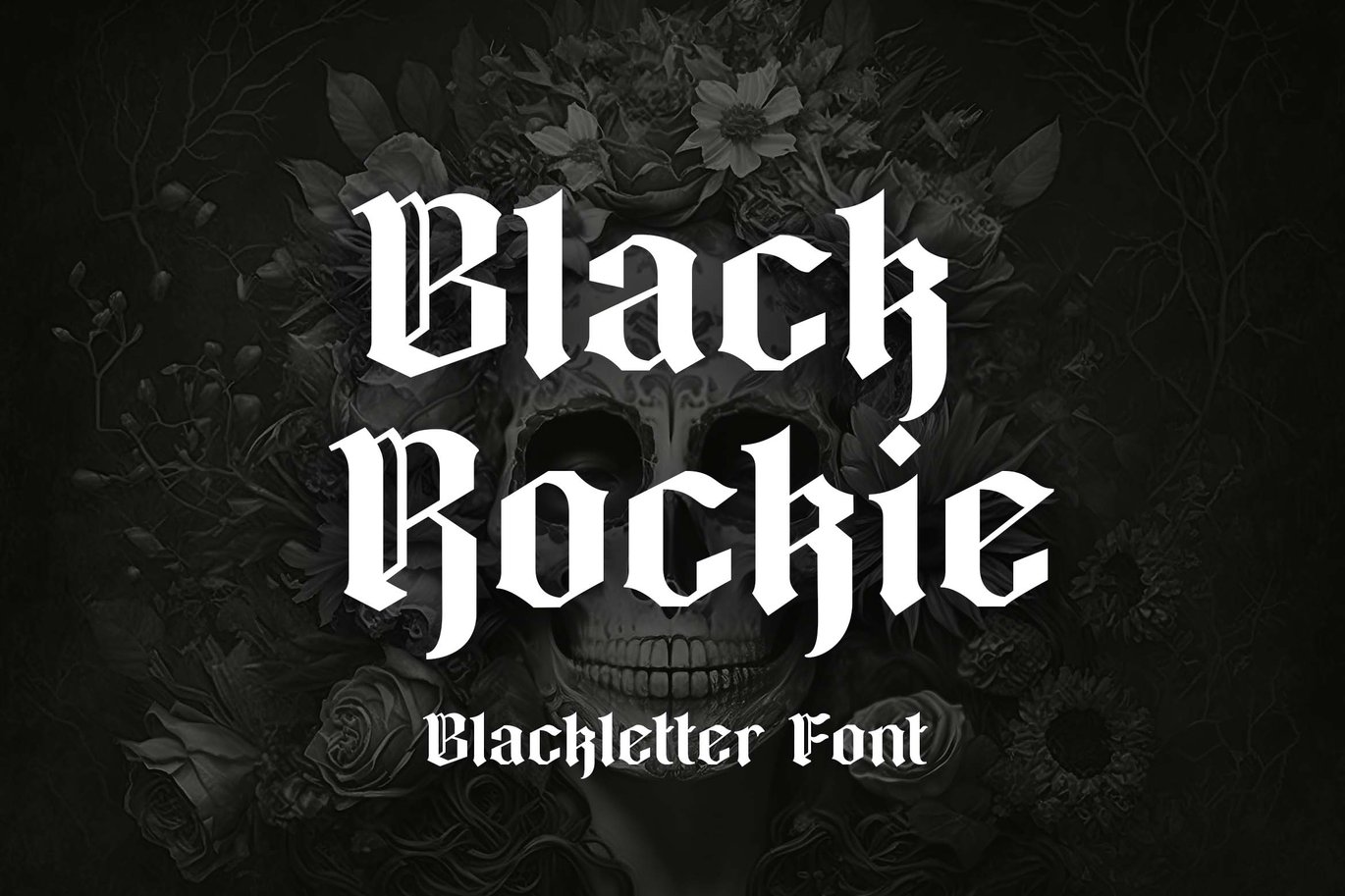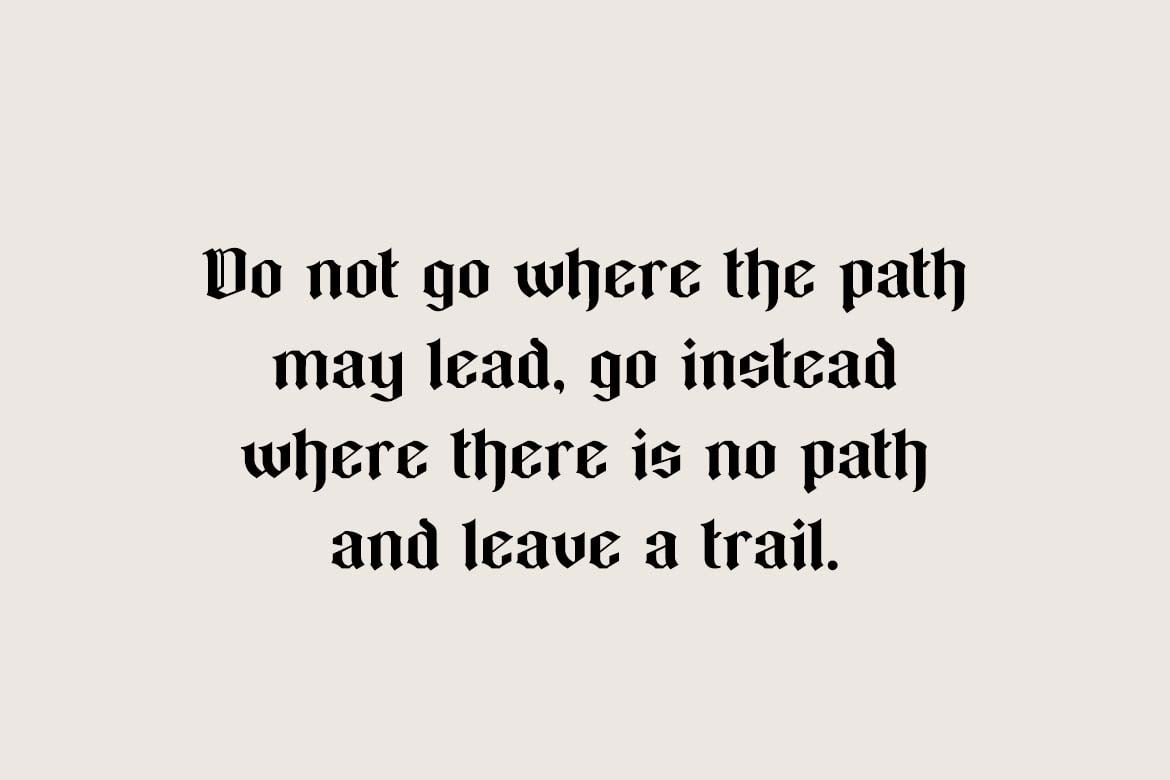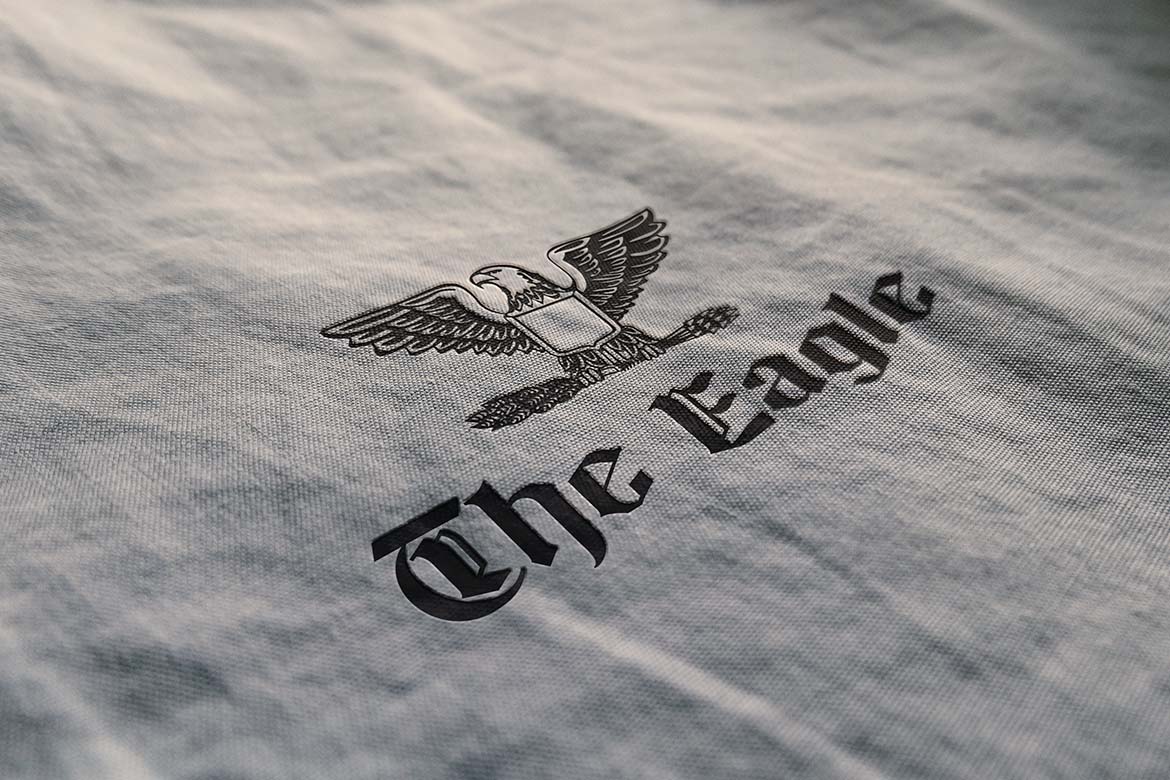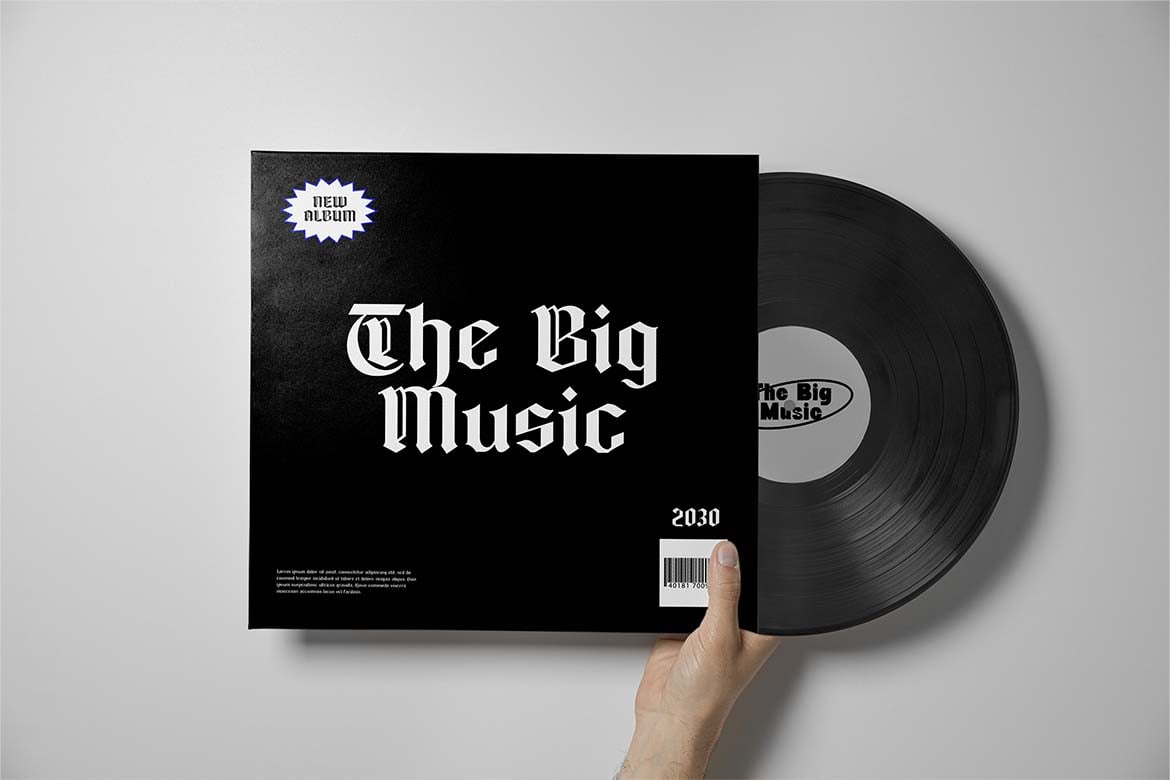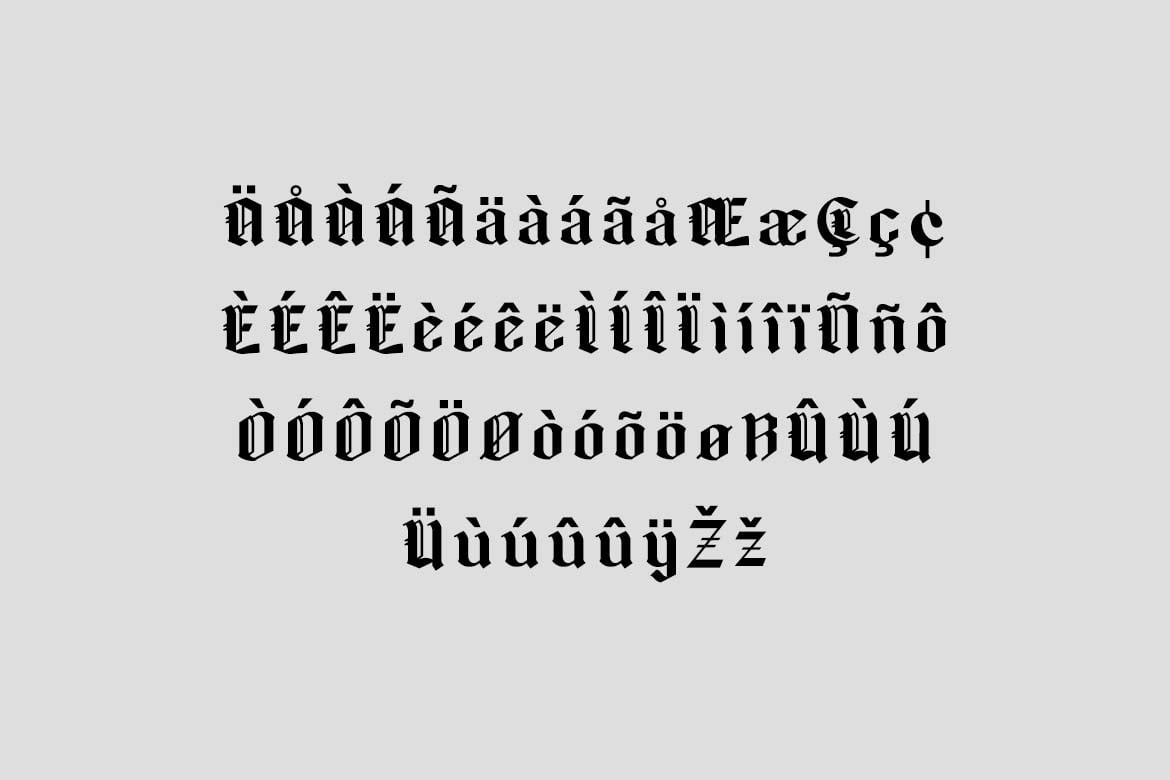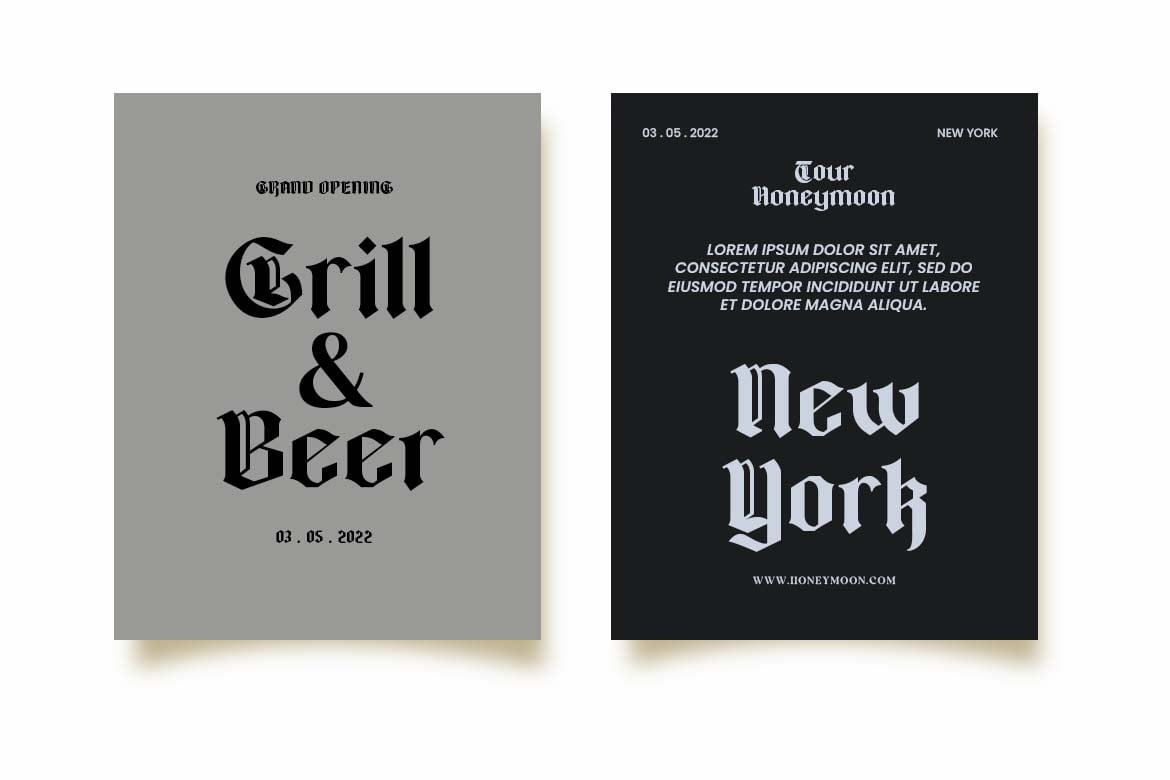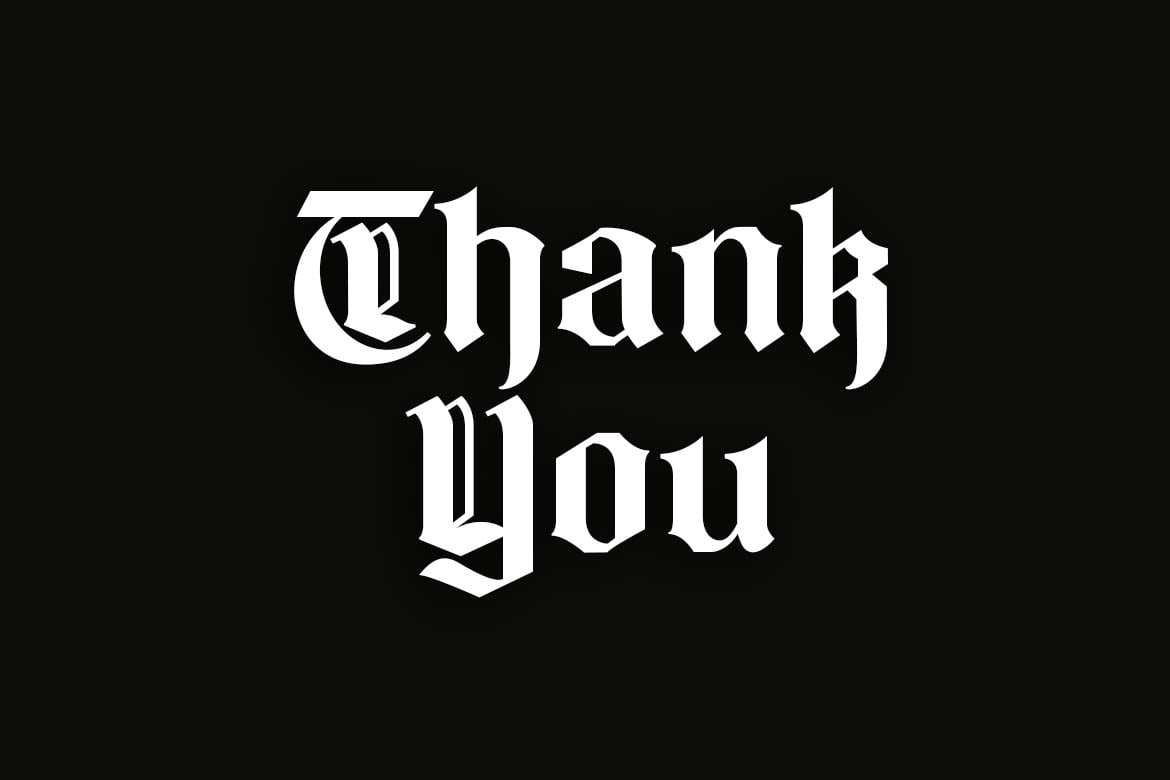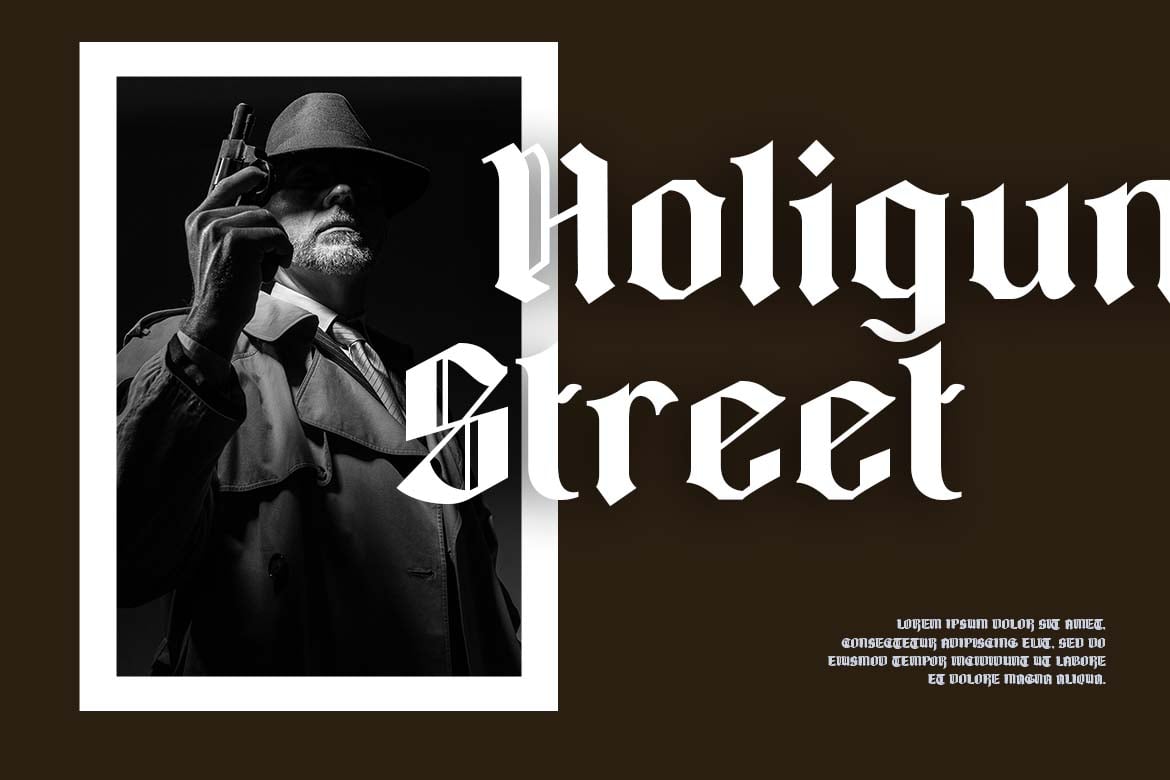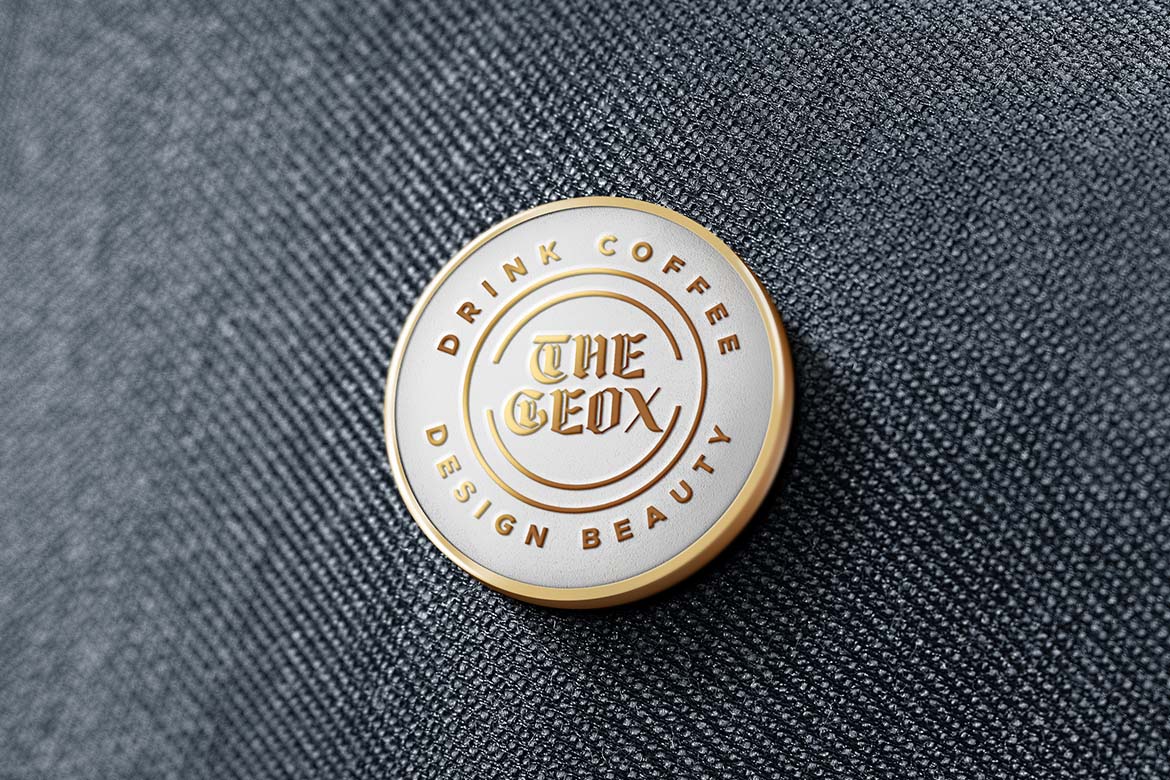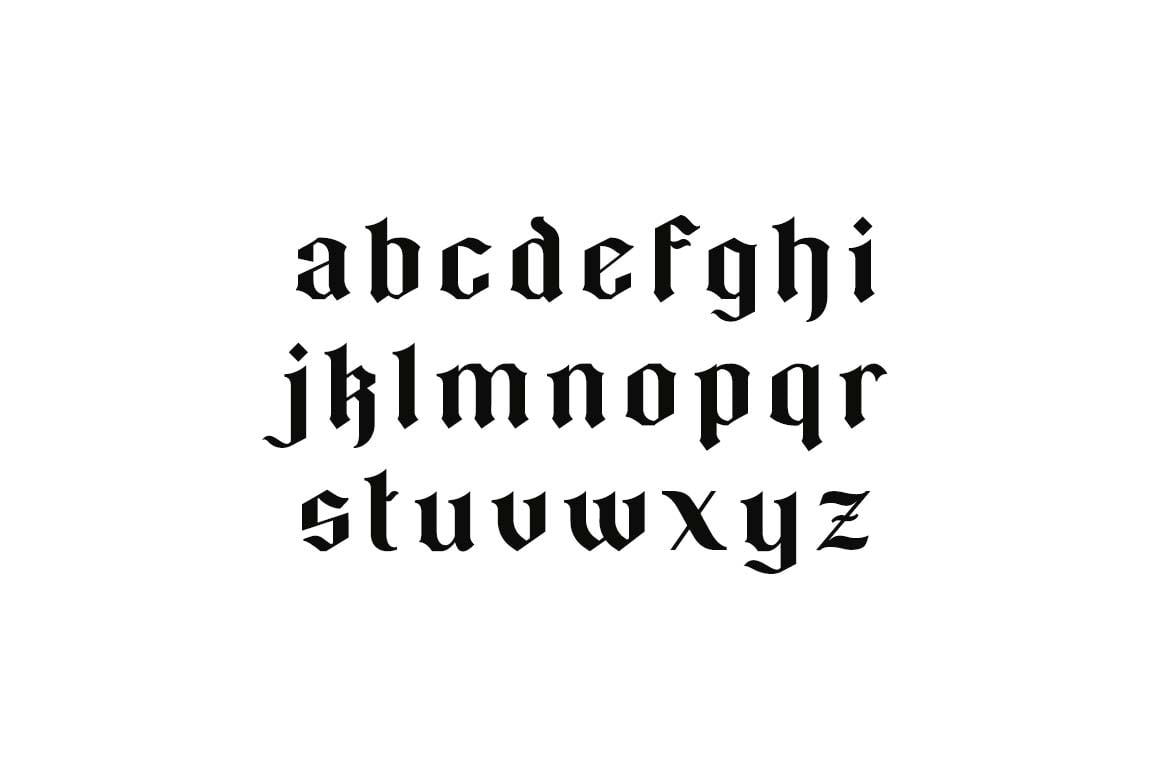
Black Rockie Blackletter Font
Introducing our new product the name is Black Rockie Blackletter Font. Black Rockie Blackletter Font that feels beautiful classy, elegant, and modern. This font is perfectly suited for a wide variety of projects, such as signature, stationery, logo, wedding, typography quotes, magazine or book covers, website headers, branding, packaging design, and more. Also, fashion-related branding or editorial design displays both masculine and feminine qualities.